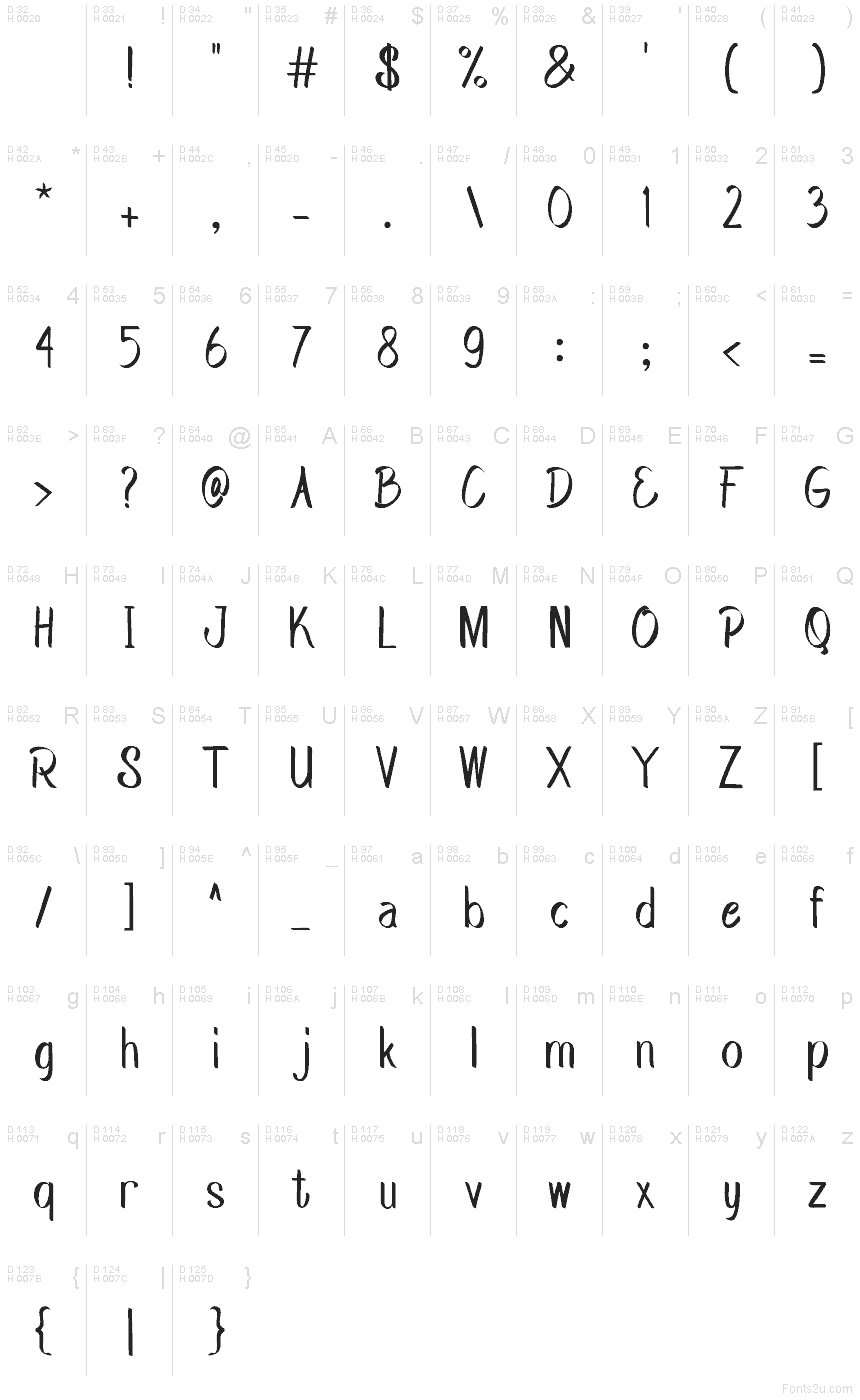
WorkColleagueRegular
Work Colleague font by Studio Hello Good is a condensed handwritten typeface that embodies artistic and humanistic qualities. Its expressive, spontaneous style is both calligraphic and stylish, resulting in an elegant modern flair. A professional touch matches each stroke, especially with the letters’ sophisticated endings which are repeated with every character.